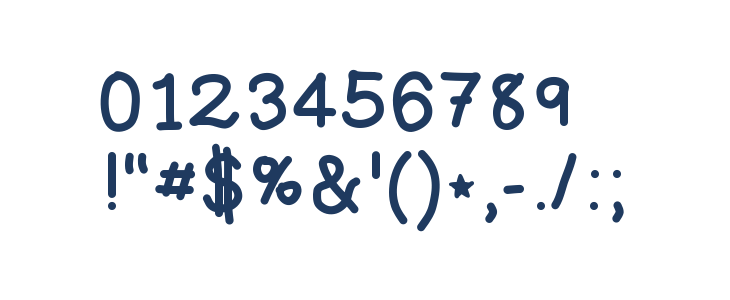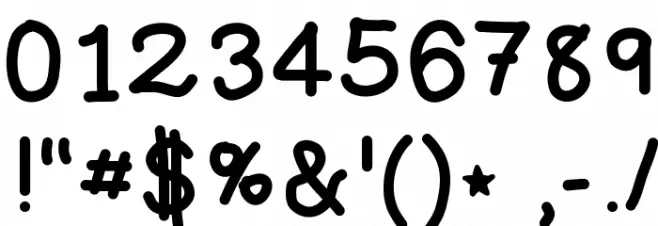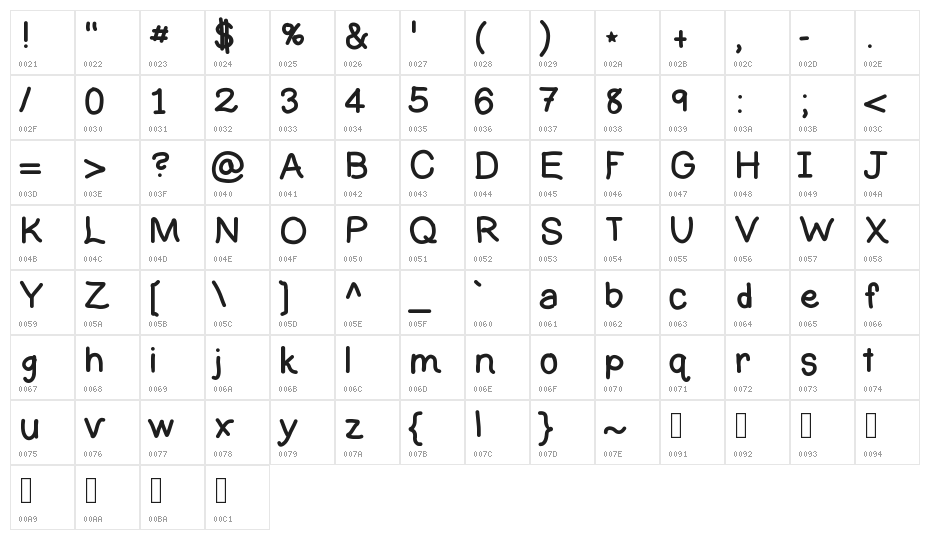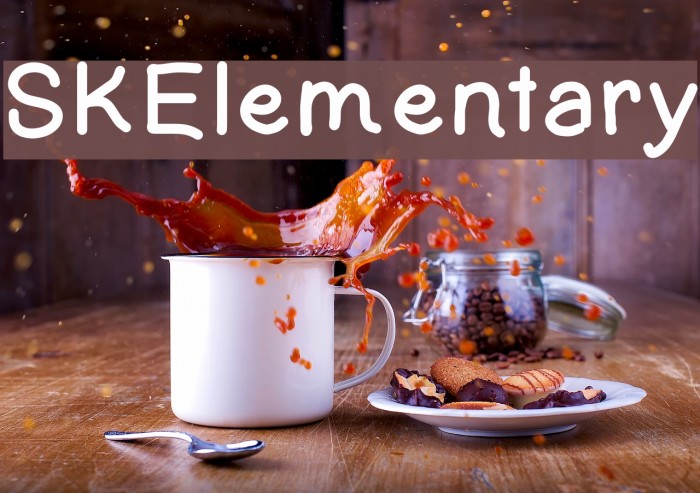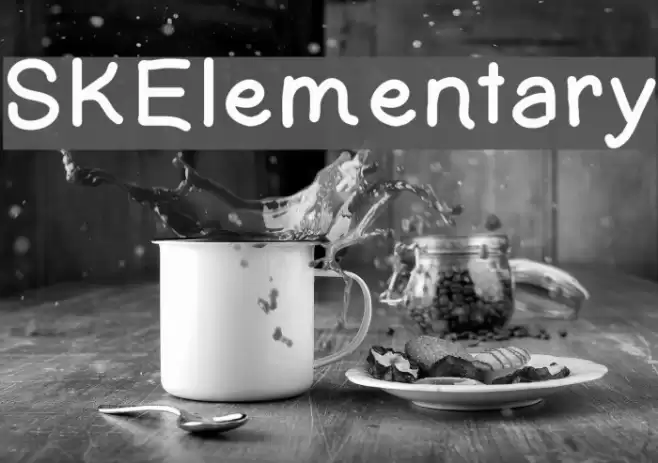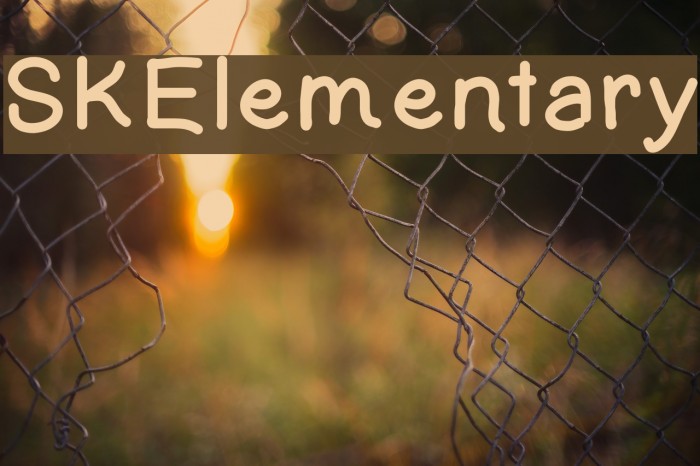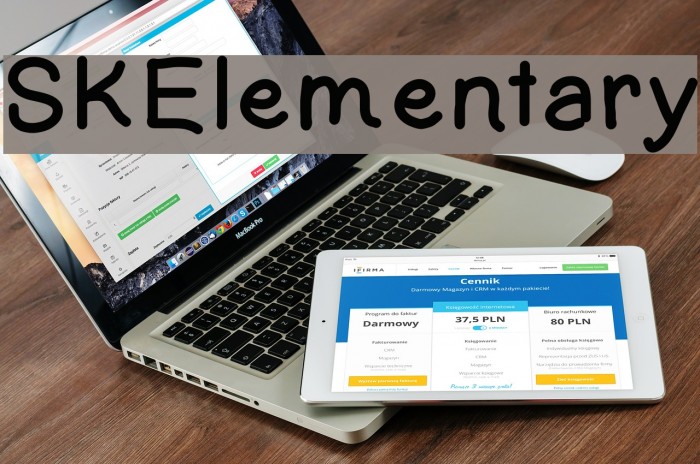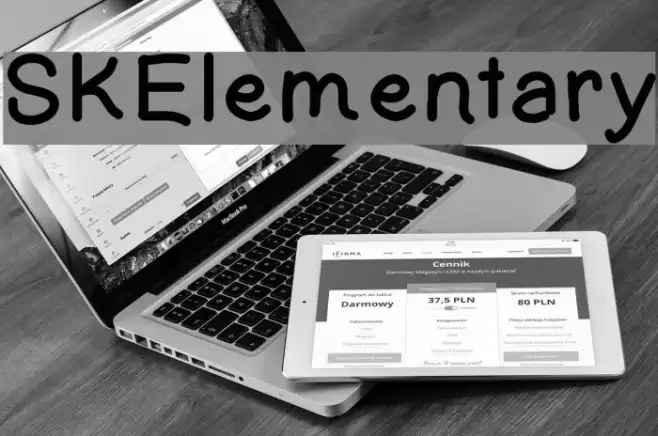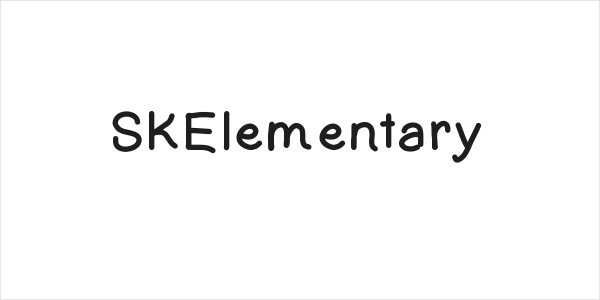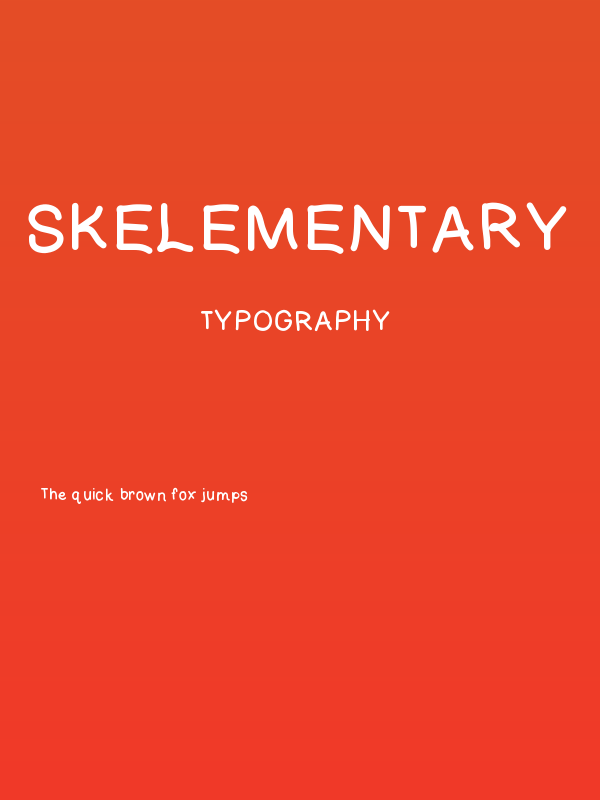
SKElementary Font
SKElementary Description
This font features a playful and informal style, reminiscent of handwriting with a slightly whimsical touch. The characters are rounded and have a consistent stroke width, giving it a friendly and approachable appearance. The uppercase and lowercase letters maintain a uniform height, while the numbers and special characters are designed to complement the overall aesthetic. The font's casual nature makes it suitable for projects that aim to convey a sense of fun and creativity. Its legibility is enhanced by the clear distinction between each character, making it easy to read even at smaller sizes.
| Proposed Projects | Ideal for children's books, educational materials, informal invitations, and creative branding. |